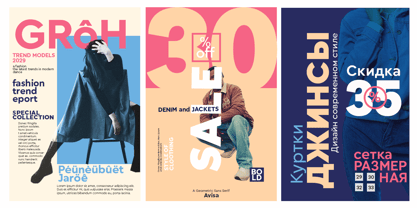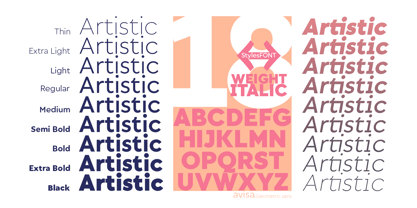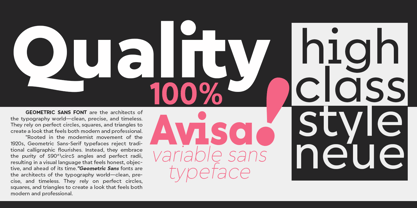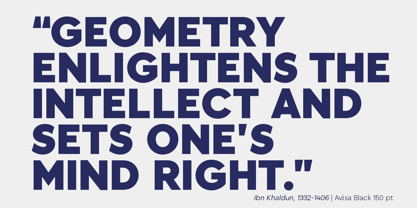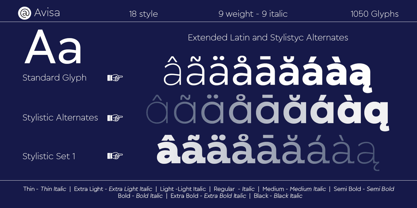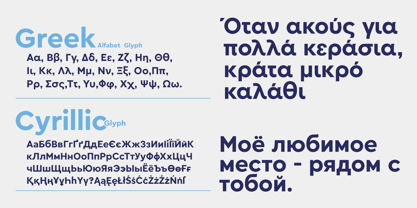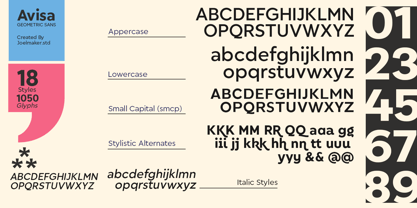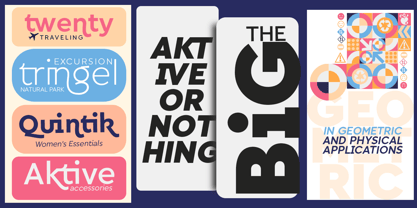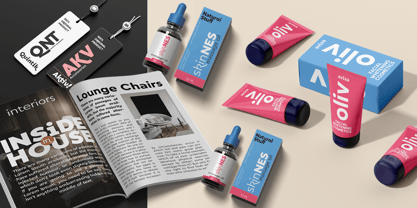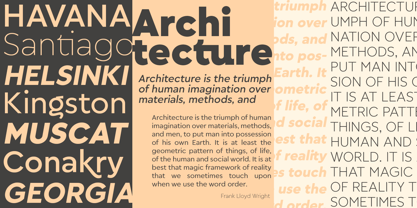
Avisa Jm
by Joelmaker
The Avisa Jm Font Family was designed by Joelmaker and published by Joelmaker. Avisa Jm contains 18 styles and family package options. More about this family
Avisa Jm : The Geometry of the Soul In the spirit of the great polymath for whom it is named, AvisaJm is more than just a typeface—it is a bridge between the precision of logic and the grace of human expression, beneath the steady rhythm of its geometric sans architecture lies a silent poetry of form. It does not shout; it breathes with a clarity that mirrors the desert horizon—vast, balanced, and timeless. Each stroke is a testament to the harmony of the circle and the line. It captures the essence of mathematical perfection and softens it with a contemporary warmth, making every word feel like a well-reasoned thought whispered into the light. The Weight of Wisdom: With 9 distinct weights, Avisa Jm journeys from the delicate whisper of a "Thin" line—fine as a silk thread—to the commanding presence of "Black," standing firm like ancient stone. The Lean of Logic: Its 9 italics are not merely slanted; they are in motion, a graceful tilt forward into the future, echoing the relentless pursuit of knowledge. A Symphony of 18 Styles: A complete ensemble designed for those who speak in the language of both structure and soul. "Where logic meets the lyric, and the grid finds its heartbeat." Avisa Jm is the voice of the modern scholar, the architect of ideas, and the poet of the digital age. It is a typeface for those who believe that even in the most rigid geometry, there is room for a masterpiece.
Designers: Joelmaker
Foundry: Joelmaker
Avisa Jm